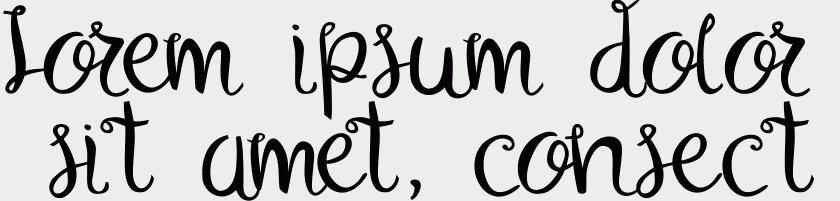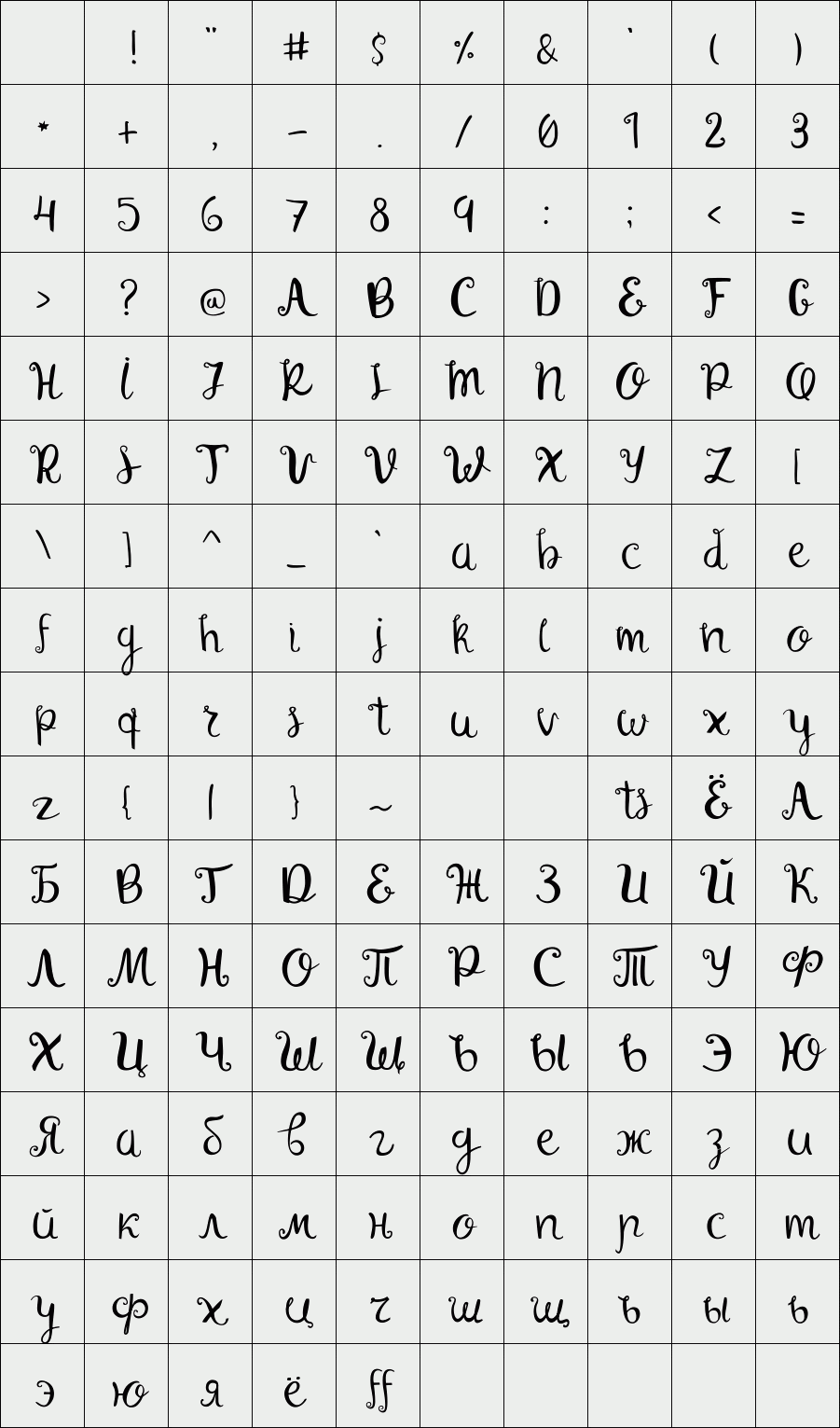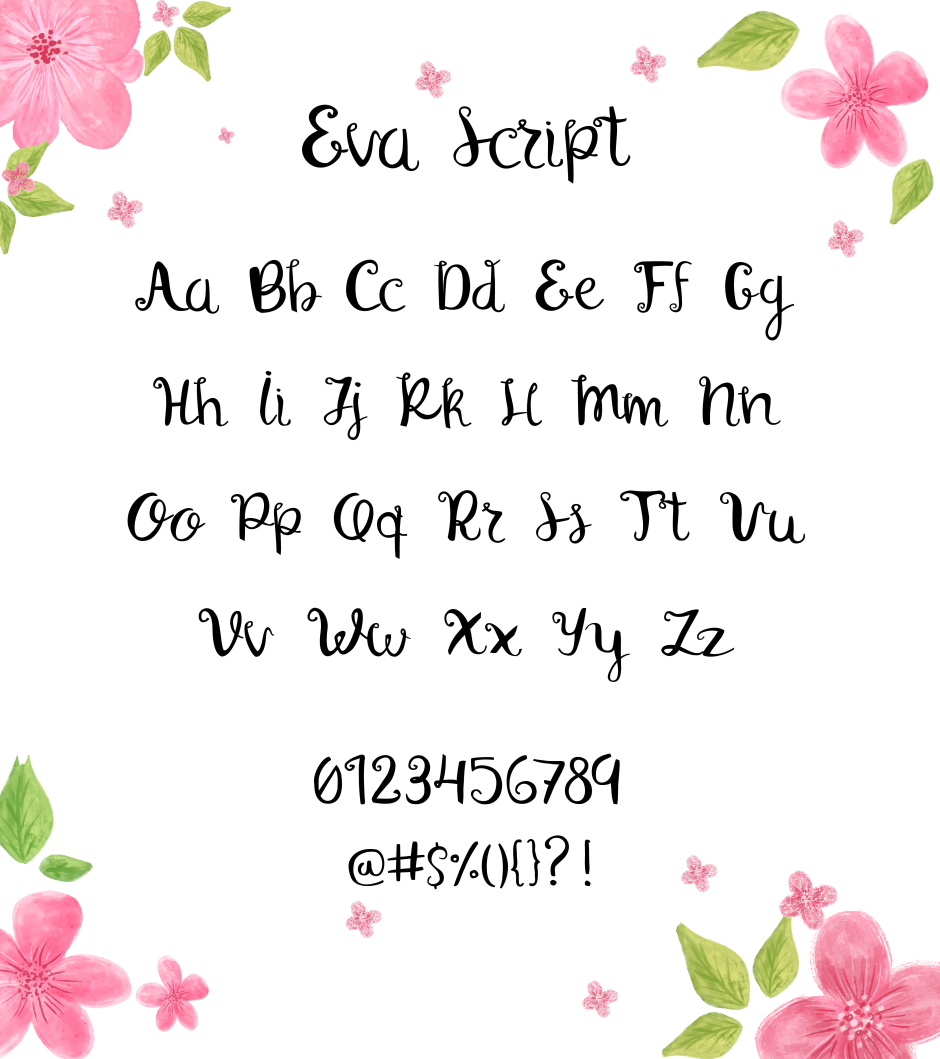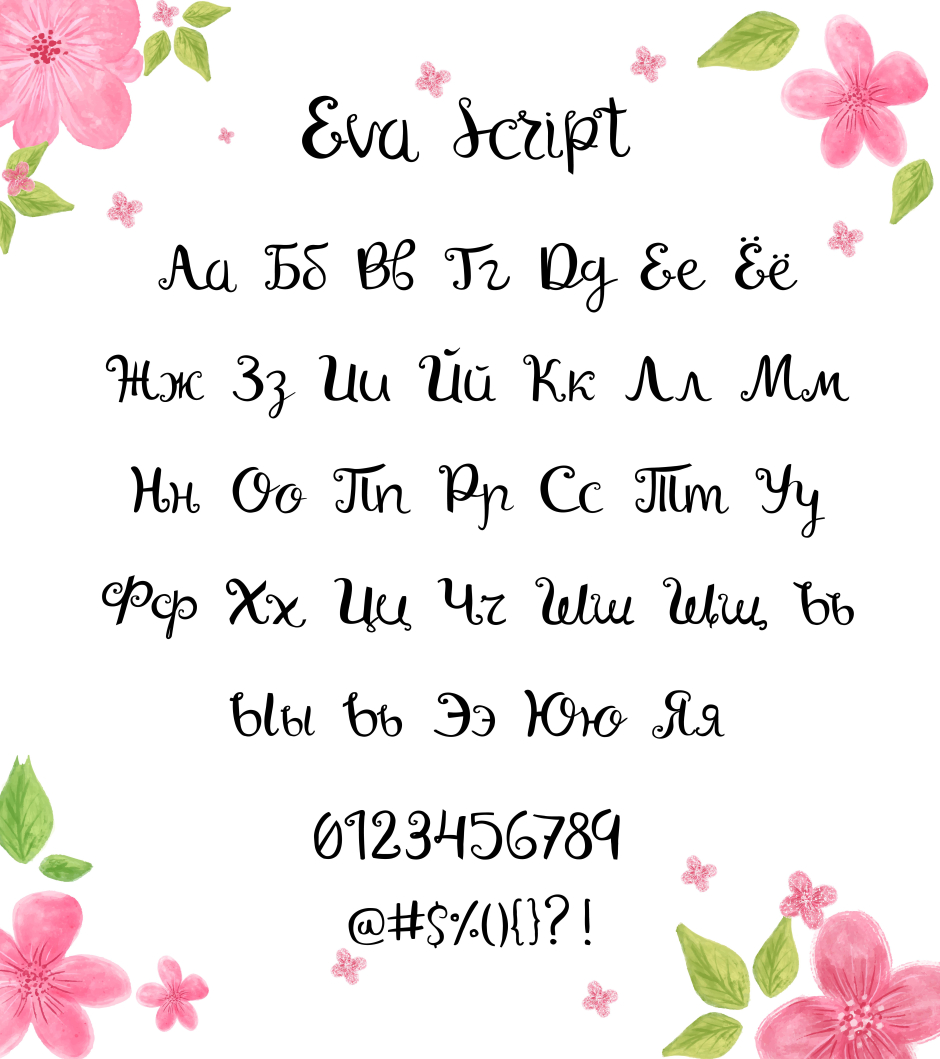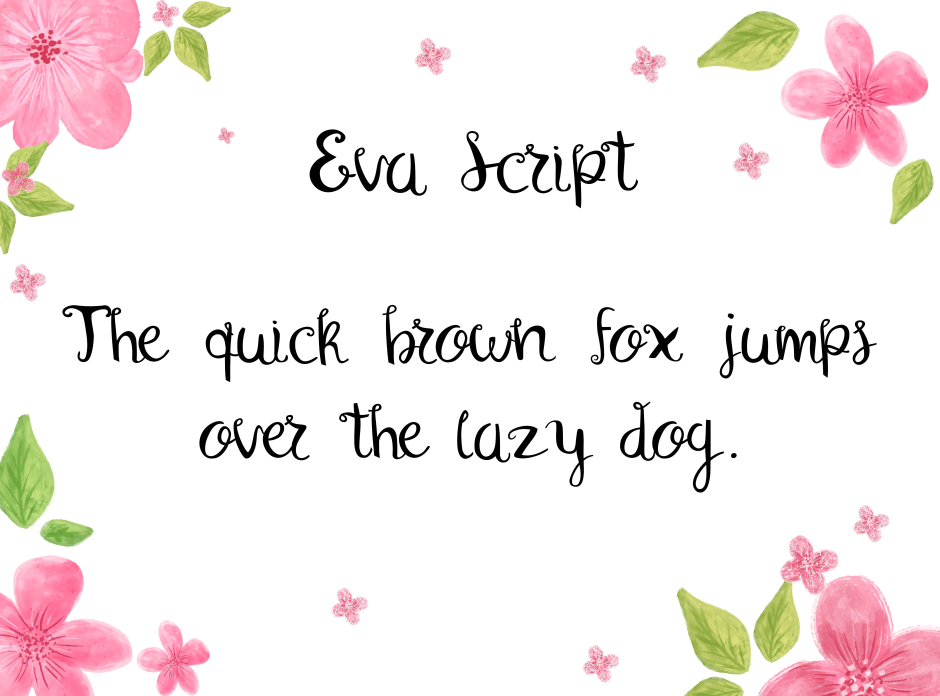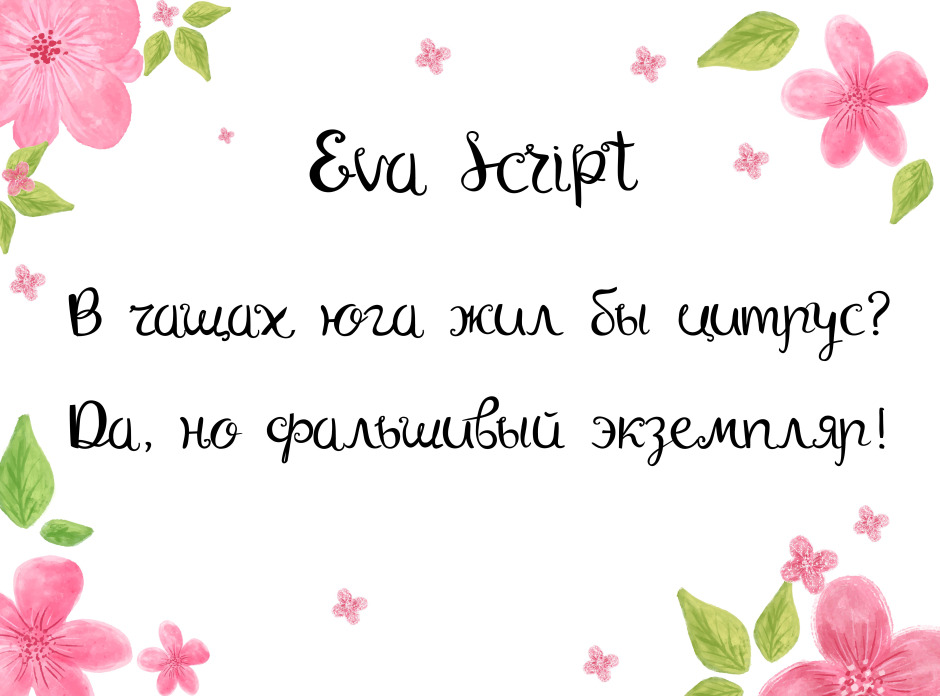
Eva Script
Eva is a decorative and playful connected script. Eva has plenty of alternate characters.There is a Russian and Latin alphabet.This font is perfect for decorative design.